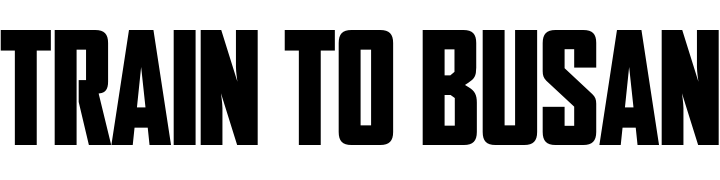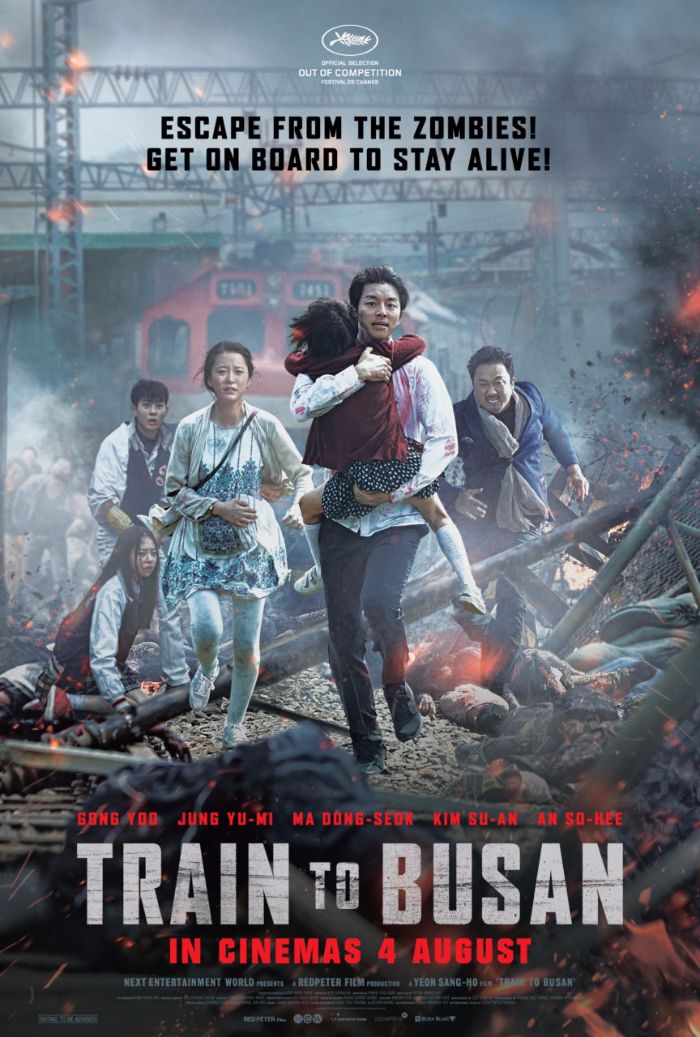
Train To Busan Font
Fonts in UseTrain to Busan also known as "Peninsula," is a South Korean zombie apocalypse film that follows a group of survivors who must navigate a post-apocalyptic wasteland overrun by zombies while facing internal conflicts and new threats.